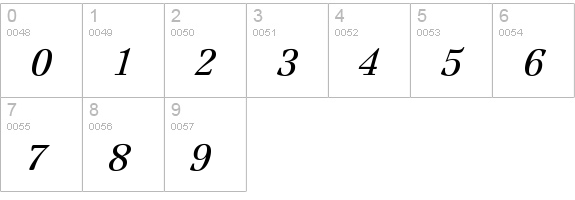
JamilleEF-BookItalic Font Details
JamilleEF-BookItalic is a stunning typeface that captures the essence of elegance and sophistication. With its gracefully slanted italic design, this font exudes a sense of refinement and style, making it the perfect choice for projects that require a touch of class. The fluid and delicate strokes of JamilleEF-BookItalic bring a sense of movement and grace to any text, making it visually appealing and captivating to the eye. Its clean and crisp lines ensure legibility while adding a subtle flair to your designs. What sets JamilleEF-BookItalic apart is not just its aesthetic appeal, but also its accessibility. This remarkable font is available for free download exclusively at FontsMarket.com. By making it freely accessible, the creators of JamilleEF-BookItalic have made it possible for designers, artists, and enthusiasts alike to incorporate this beautiful font into their work without any financial constraints. Whether you are designing a book cover, creating a logo, or crafting a sophisticated invitation, JamilleEF-BookItalic is a versatile font that will elevate your project to new heights. Its ability to convey both elegance and professionalism makes it suitable for a wide range of applications, from corporate materials to personal projects. With JamilleEF-BookItalic, your text becomes a work of art, elevating the overall visual impact of your design. Embrace the beauty and sophistication of this font and bring a touch of refinement to your creative endeavors. Download JamilleEF-BookItalic for free at FontsMarket.com and unlock a world of endless design possibilities.